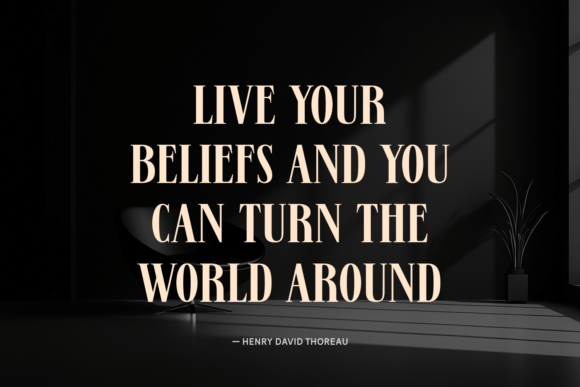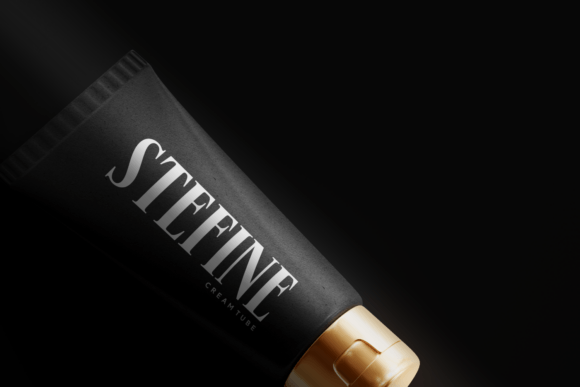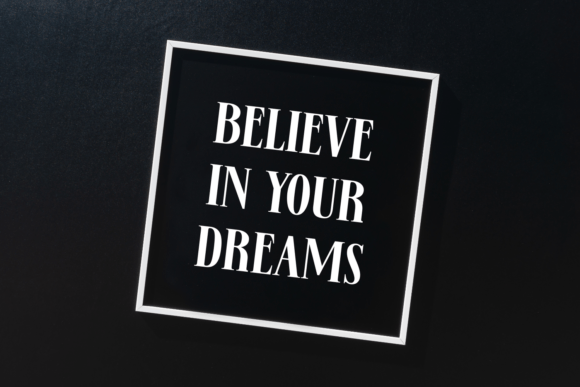
The Elusive Perfect Font: My Encounter with Fiones Font
I’ll never forget the struggle I faced while working on a luxury branding project for a high-end jewelry client. The brief was clear: create a sophisticated visual identity that exuded elegance and timeless beauty. The catch? The font had to be perfect. I scoured the internet, tried countless fonts, but nothing seemed to fit the bill. That was until I stumbled upon Fiones Font. ✨
In this article, I’ll share my experience with Fiones Font, its features, and how to make the most of it in your designs. Whether you’re a designer, crafter, or creative hobbyist, you’ll learn why Fiones Font is an excellent choice for luxury branding, editorial layouts, and invitations.
Fiones Font: A Sophisticated Serif Beauty
Fiones Font is a stunning serif font that embodies sophistication and elegance. Its refined details, balanced proportions, and stylish serifs make it perfect for creating modern, elegant designs. Here’s what I love about Fiones Font:
- ✨ Elegant and refined design
- ✅ Perfect for luxury branding, editorial layouts, and invitations
- 💯 Highly readable, even at small sizes
- 🎨 Versatile and works well with various design styles
Honest Review: The Good and the Quirks
While Fiones Font is an excellent choice, it’s not without its quirks. Here are a few things to keep in mind:
- ⚠️ Limited language support (for now)
- 🤔 Some users may find the font too ornate for certain projects
- Experiment with OpenType features, such as stylistic alternates, to add visual interest
The Story Behind Fiones Font
Fiones Font was designed with the goal of creating a sophisticated, elegant font that would meet the needs of luxury brands and designers. Inspired by classic serif fonts, Fiones Font’s creator aimed to craft a font that would exude timeless beauty and refinement.
| What is Fiones Font best used for? | Luxury branding, editorial layouts, and invitations. |
| Is Fiones Font suitable for body text? | Yes, Fiones Font is highly readable, even at small sizes, making it suitable for body text. |
| Does Fiones Font support multiple languages? | Currently, Fiones Font has limited language support, but more languages may be added in the future. |
In conclusion, Fiones Font is a stunning serif font that embodies elegance and sophistication. With its refined details, balanced proportions, and stylish serifs, it’s perfect for creating modern, elegant designs. Whether you’re a designer, crafter, or creative hobbyist, Fiones Font is an excellent choice for your next project.